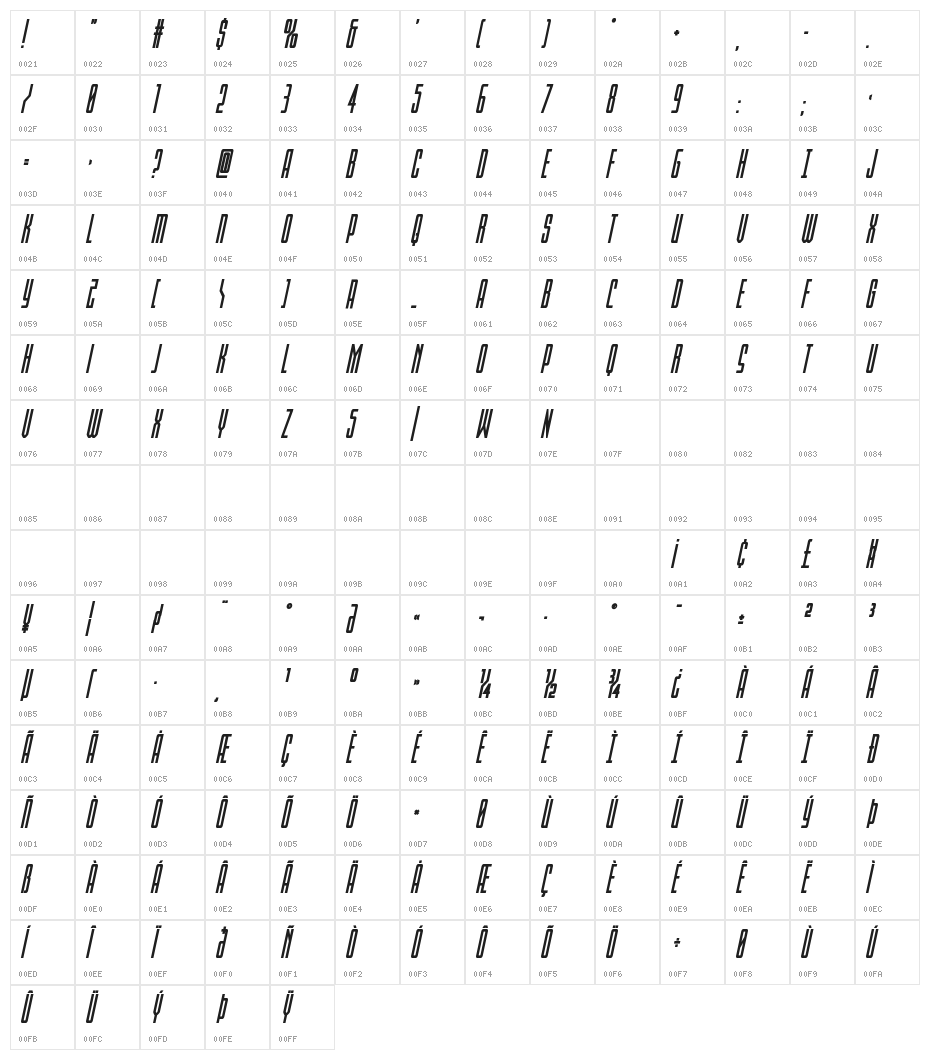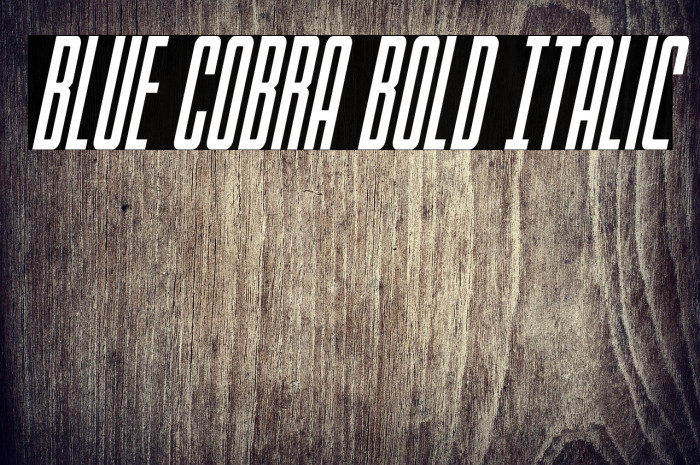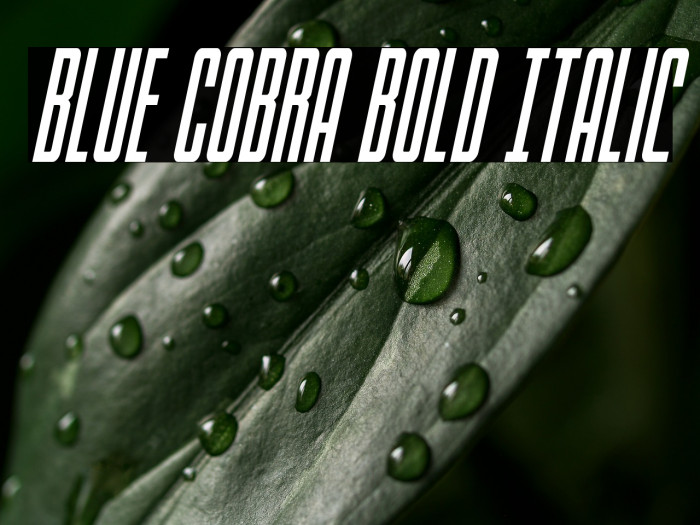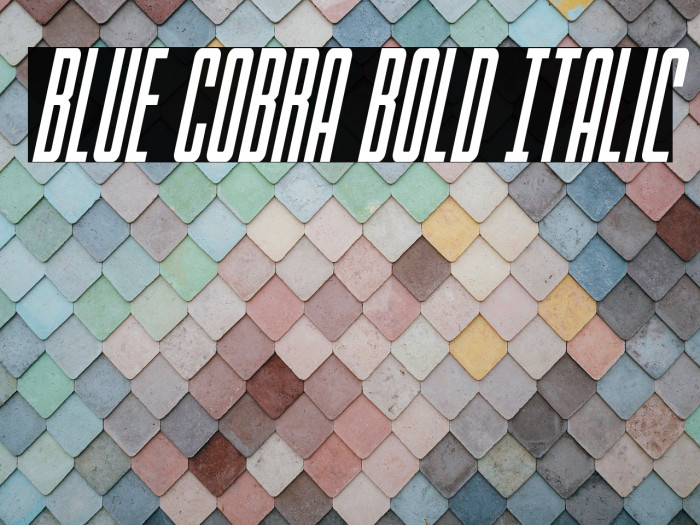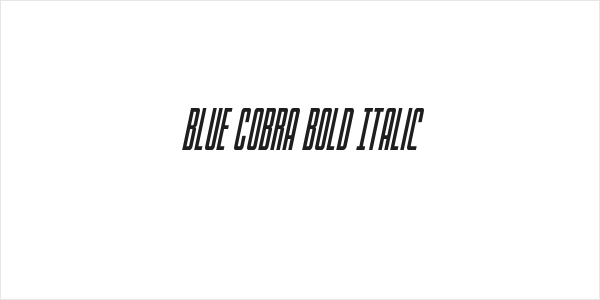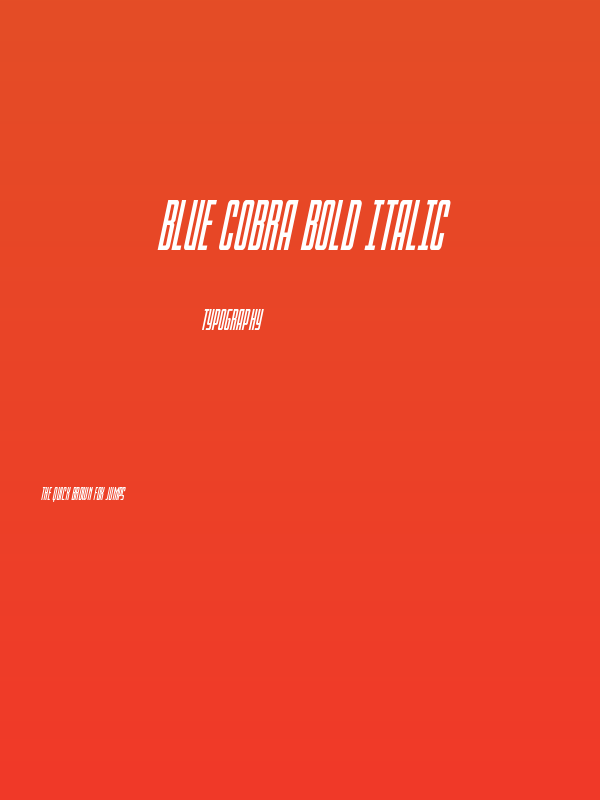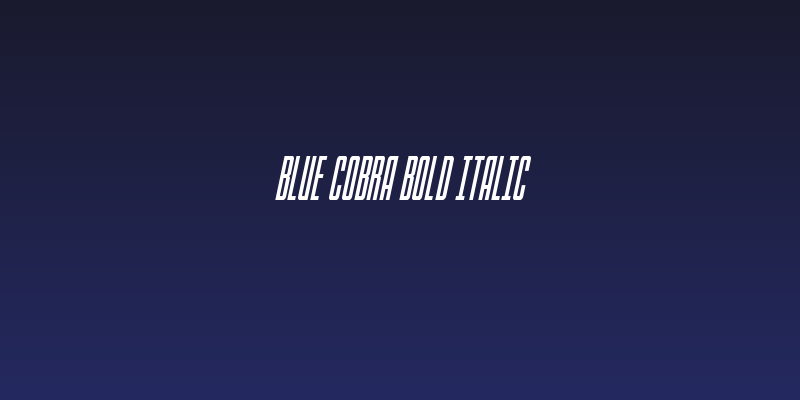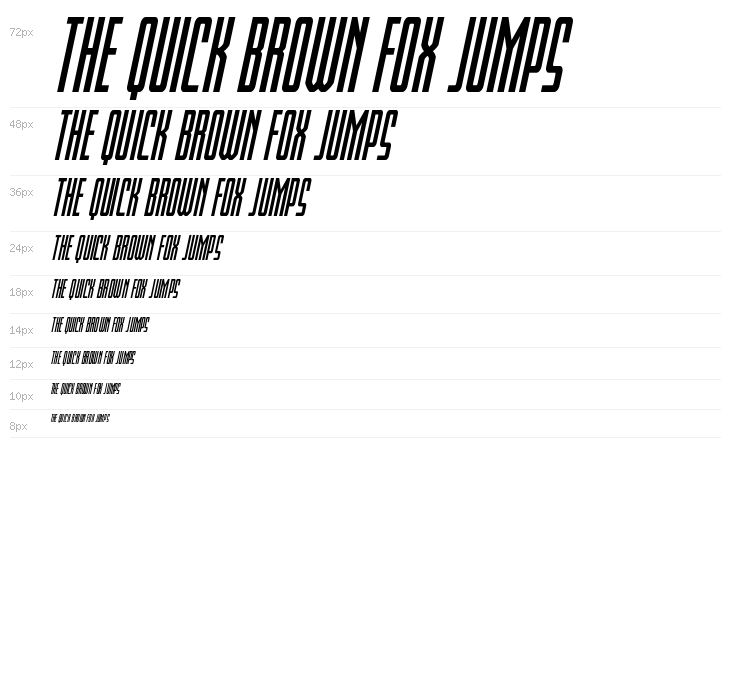
Blue Cobra Bold Italic Font
Blue Cobra Bold Italic Description
This font features a bold and italicized style with a distinct slant, giving it a dynamic and energetic appearance. The characters are elongated and condensed, creating a sleek and modern look. The uppercase and lowercase letters maintain a consistent height, while the numerals and special characters are designed to match the overall aesthetic. The strokes are thick, providing a strong presence, and the sharp angles add a sense of movement and speed. This font is suitable for projects that require a bold statement and a contemporary feel.
| Proposed Projects | Ideal for sports branding, dynamic posters, modern logos, and eye-catching headlines. |